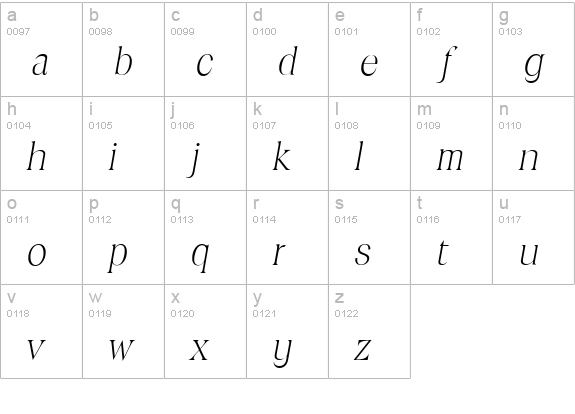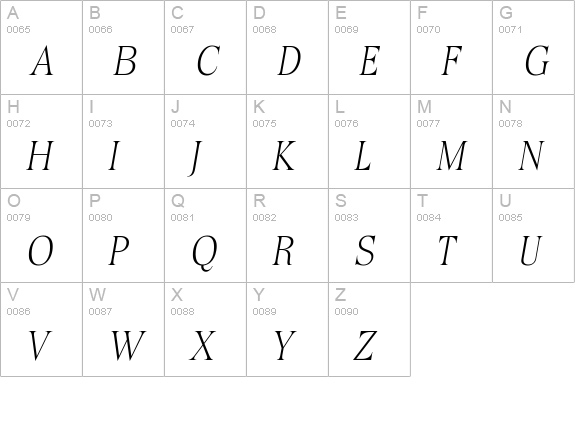
ToledoSerial-Xlight-Italic is a distinctive, italic variant in the ToledoSerial typeface family \xE2\x80\x94 well suited to design and typography projects.
ToledoSerial-Xlight-Italic is a sleek and elegant font that exudes sophistication and modernity. With its delicate angles and slender letterforms, this font is perfect for adding a touch of refinement to any design project. The italicized style of ToledoSerial-Xlight-Italic lends a sense of dynamism and movement, making it an ideal choice for projects that require a sense of energy and flair. Best of all, ToledoSerial-Xlight-Italic is available for free download at FontsMarket.com. This means you can easily add this stylish font to your collection without any cost, making it a valuable resource for designers and creatives looking to elevate their work with a touch of class and sophistication. Don't miss out on this opportunity to enhance your projects with the timeless elegance of ToledoSerial-Xlight-Italic - download it for free today!